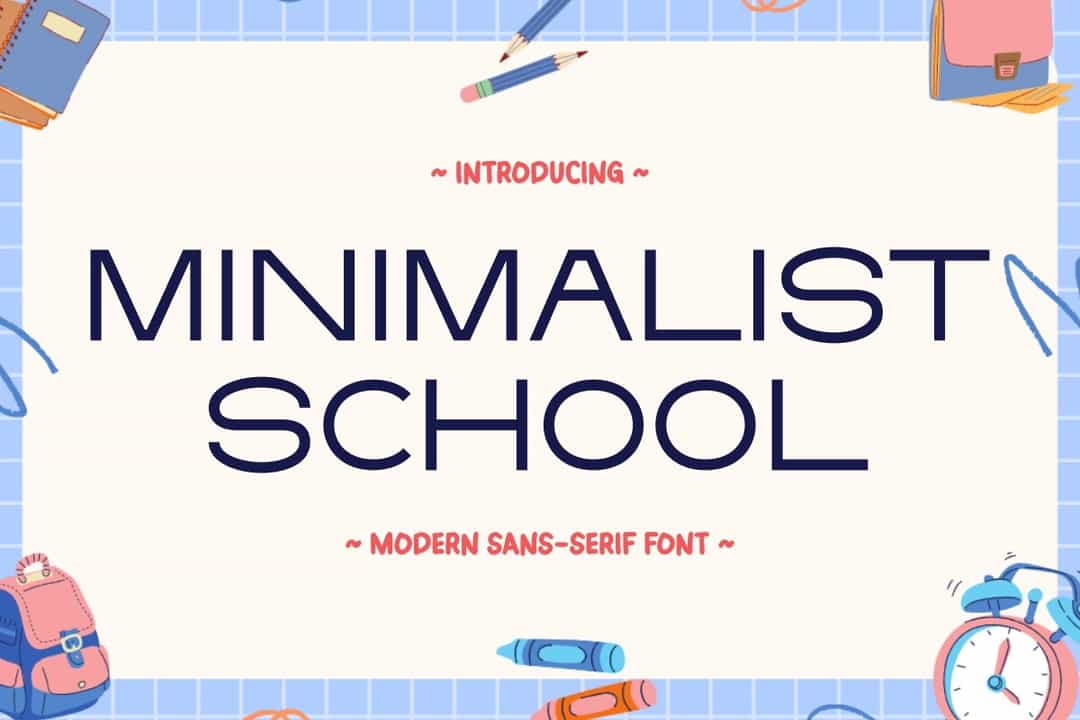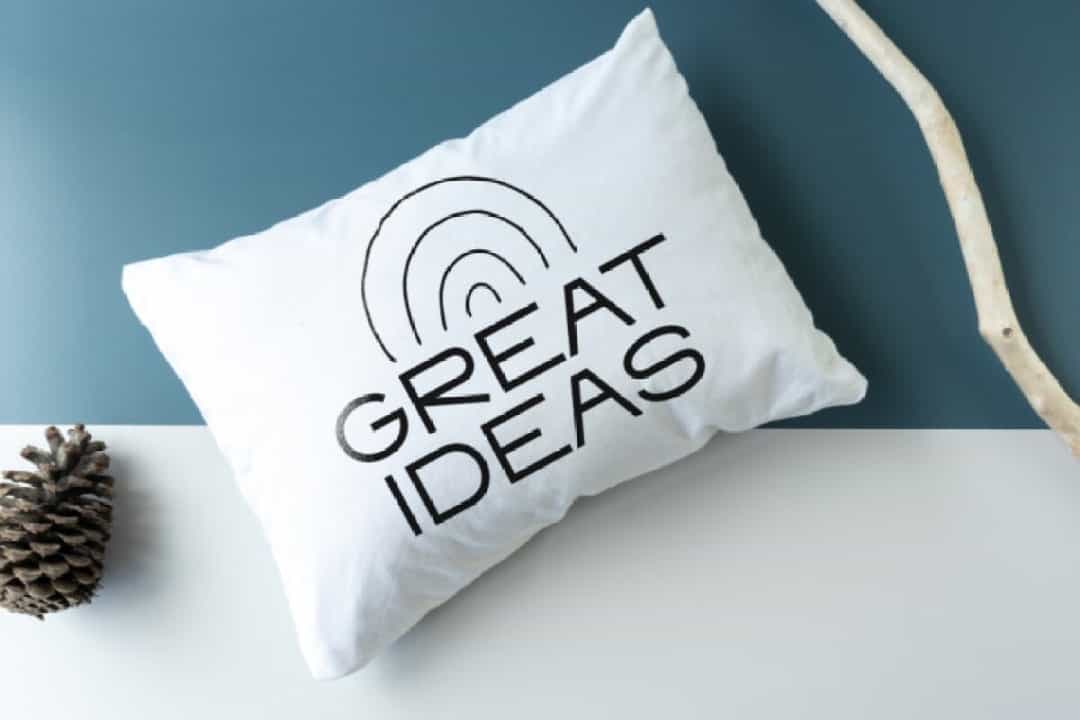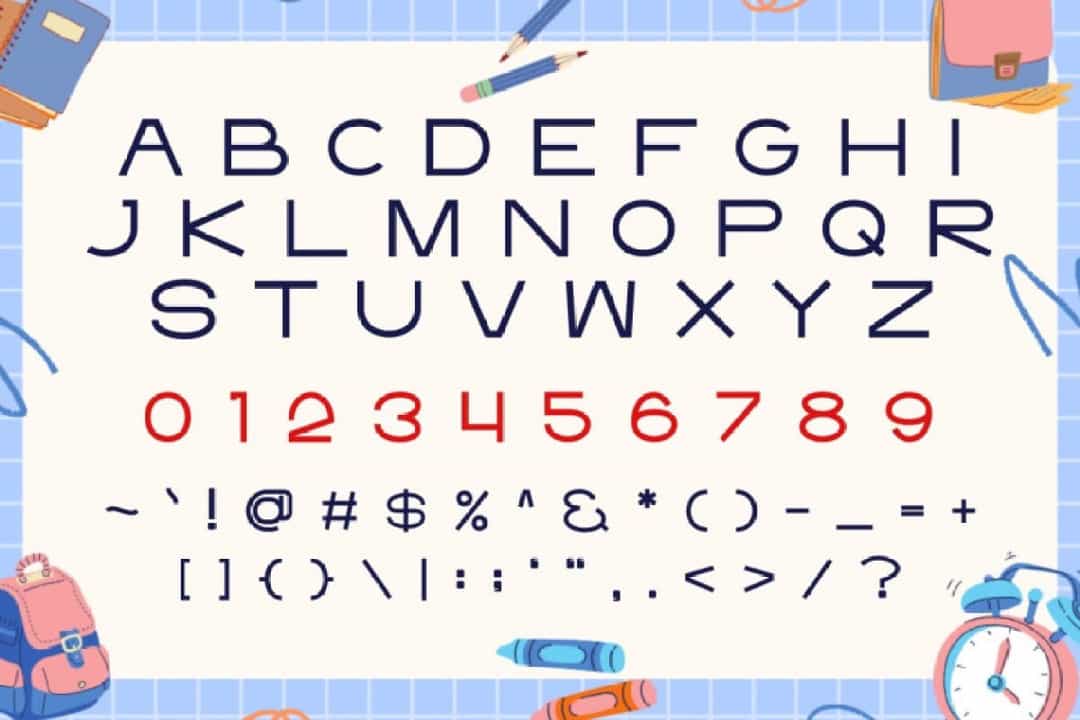
Minimalist School is a modern sans serif typeface created specifically to suit children and schools. Combining clean lines with subtle modern simplicity while still remaining classic in appearance.